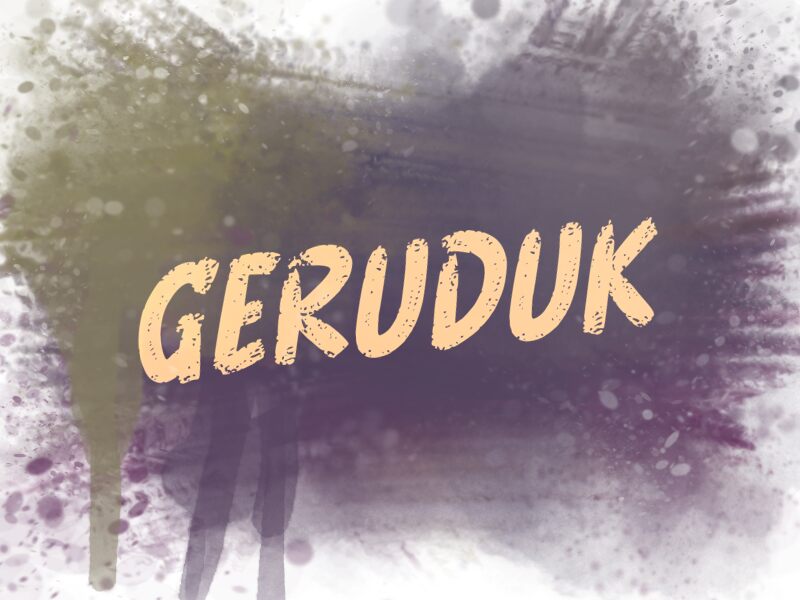
Geruduk
Geruduk by wep is a captivating brush font that exudes a dynamic, handcrafted essence. Its bold, expressive strokes and organic flow evoke a sense of movement and energy, lending a distinctive character to any design. The font's uneven edges and varied line weights create a raw, authentic aesthetic, while the playful ligatures and swashes add a touch of sophistication. Geruduk's striking visual presence makes it an excellent choice for headlines, branding, and creative projects seeking to convey a bold, artisanal vibe.
This versatile font shines in a wide range of applications, from editorial design and packaging to signage and advertising. Its adaptability allows it to seamlessly integrate into contemporary typographic compositions, adding an impactful focal point or complementing other design elements. Whether used for a bold statement or a subtle accent, Geruduk's unique personality is sure to captivate and leave a lasting impression.